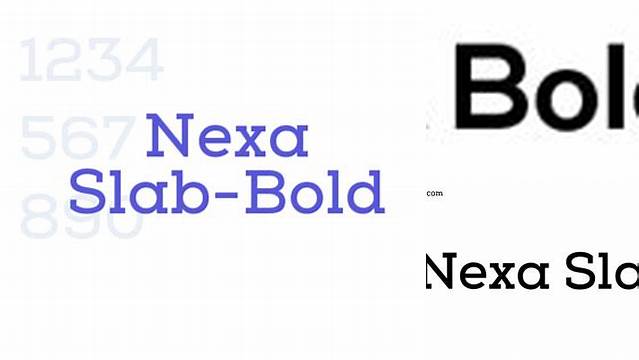
Nexa Slab X Bold Font: Free Download & Guide
Hey there, font fanatics! If you're on the hunt for a strong, versatile, and eye-catching font, look no further than Nexa Slab X Bold. And the best part? You can get a free download! This guide will walk you through everything you need to know, from where to snag the font to how to make the most of its bold personality in your designs. Get ready to level up your typography game!
Nexa Slab X Bold: A Deep Dive into the Font
Alright, let's get down to brass tacks. Nexa Slab X Bold is part of the larger Nexa family, a collection celebrated for its clean lines, modern aesthetic, and incredible legibility. The "Slab" in its name hints at the defining feature: those strong, block-like serifs that give it a robust and impactful appearance. The "X" denotes a certain stylistic variation, often indicating an extra weight or wider spacing. And, of course, "Bold" tells you this is the heavy hitter of the bunch. This particular weight is perfect for headlines, subheadings, and any text that needs to grab immediate attention. It’s a workhorse font, equally at home on websites, posters, and print materials.
When choosing a font, understanding its characteristics is key. Nexa Slab X Bold features a high x-height, meaning the lowercase letters are tall relative to the capital letters. This improves readability, especially in smaller sizes. The serifs are sturdy and pronounced, giving the font a sense of stability and authority. The overall design is geometric and balanced, making it both visually appealing and easy on the eyes. Designers often turn to it when they need a font that communicates strength, reliability, and a touch of modern flair. Its versatility allows it to be paired with both sans-serif and serif fonts, making it a fantastic choice for branding and design projects that need to achieve a distinct aesthetic. You'll find it is particularly effective in creating a sense of prominence and confidence, making it a perfect pick for a variety of creative endeavors. The letterforms have a consistent weight that ensures clarity, even in different contexts and applications. Its contemporary feel lends itself to many design projects.
The appeal of Nexa Slab X Bold lies in its ability to be both assertive and adaptable. This allows it to be used successfully in many scenarios. Whether you are building a website, crafting an advertisement, or just creating some compelling social media graphics, this font will serve you. It’s not just about its appearance, the underlying design offers a readability that ensures messages land with impact. The font's balanced design allows for easy integration into larger design systems. This adaptability is critical in today’s fast-paced digital world where designs must look good and also communicate effectively across various platforms and devices. Its availability as a free download also makes it accessible to everyone from novice designers to seasoned professionals. Therefore, why not take advantage of Nexa Slab X Bold and create amazing designs today?